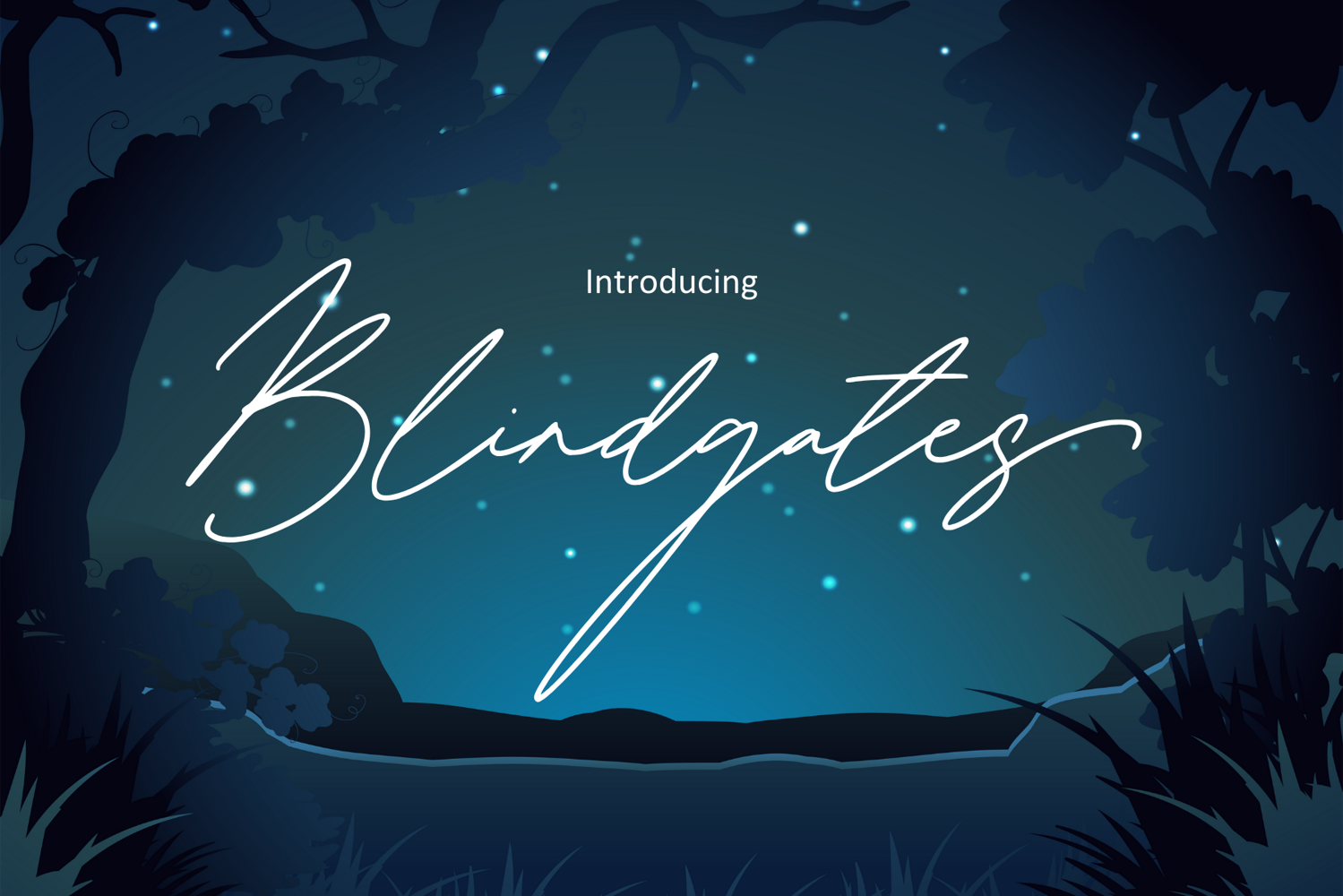
Blindgates
Introducing Blindgates, a sleek and modern monoline font designed with simplicity in mind. Featuring clean, smooth lines and an elegant flow, Blindgates offers a contemporary, minimalist approach to typography that works beautifully across a wide range of design projects.
This versatile typeface is perfect for logos, branding, headlines, posters, and any design that calls for a clean, sophisticated touch. Its uniform line weight ensures clarity and legibility, making it ideal for both print and digital applications.
Whether you're creating a modern brand identity or looking for a stylish font for your next project, Blindgates brings a subtle elegance with every letter.